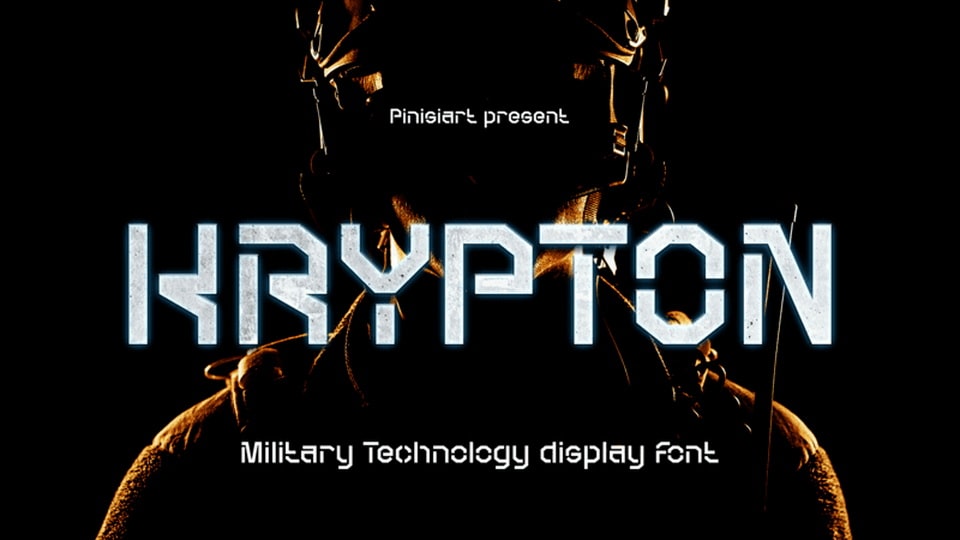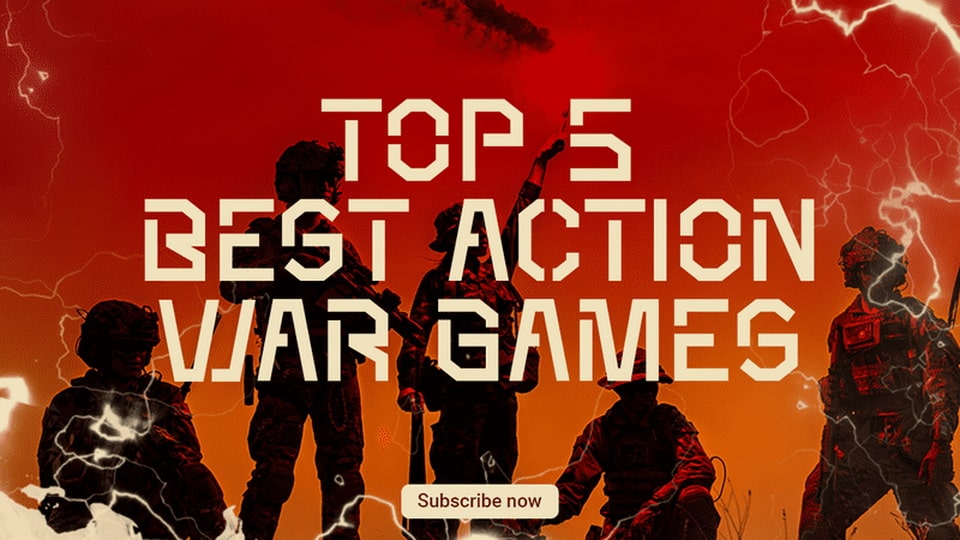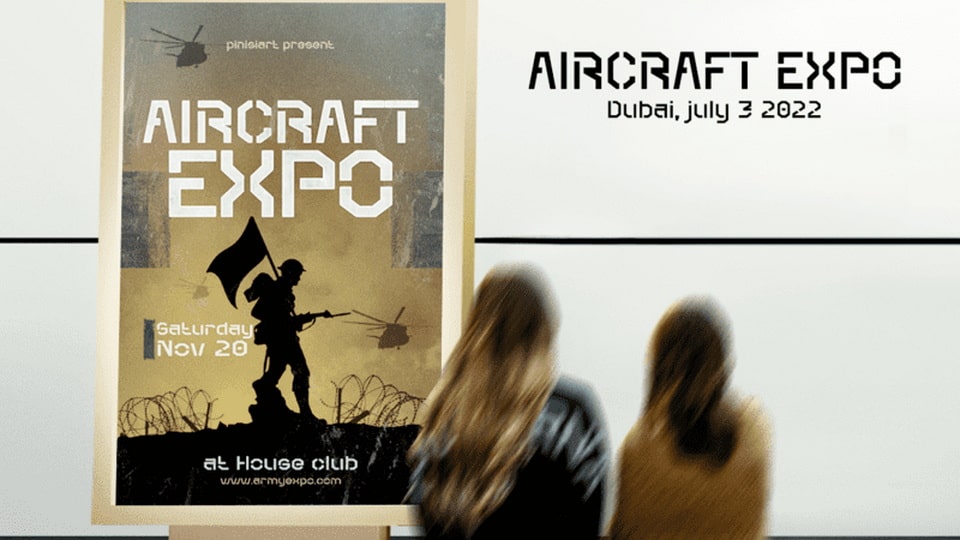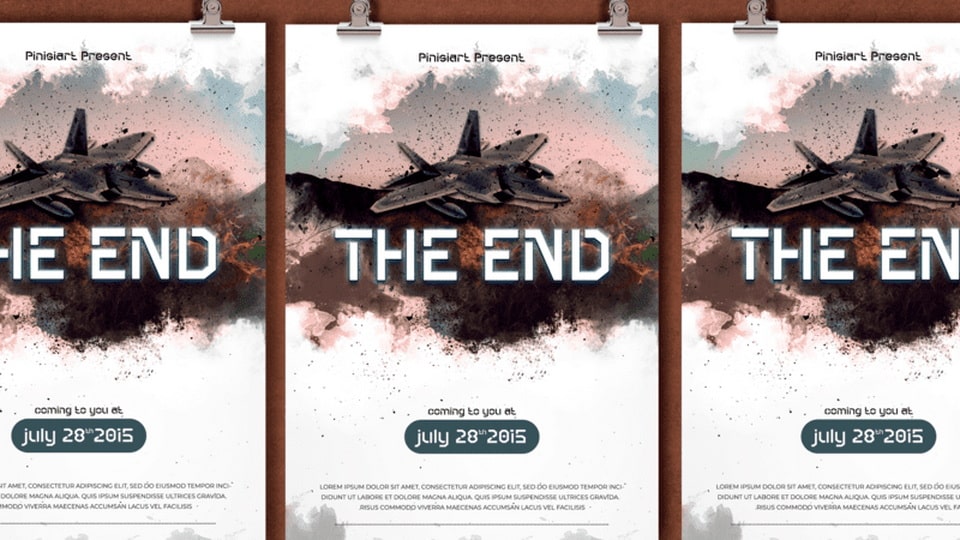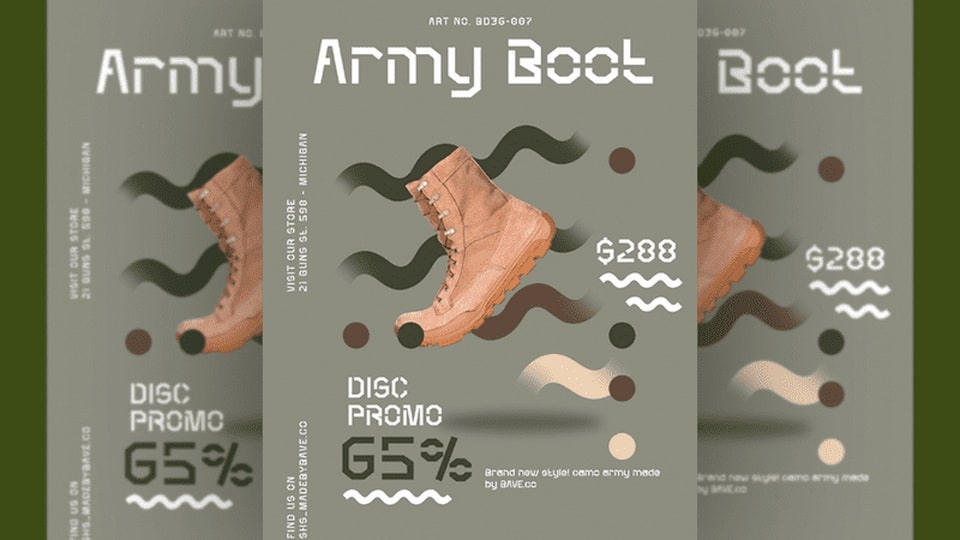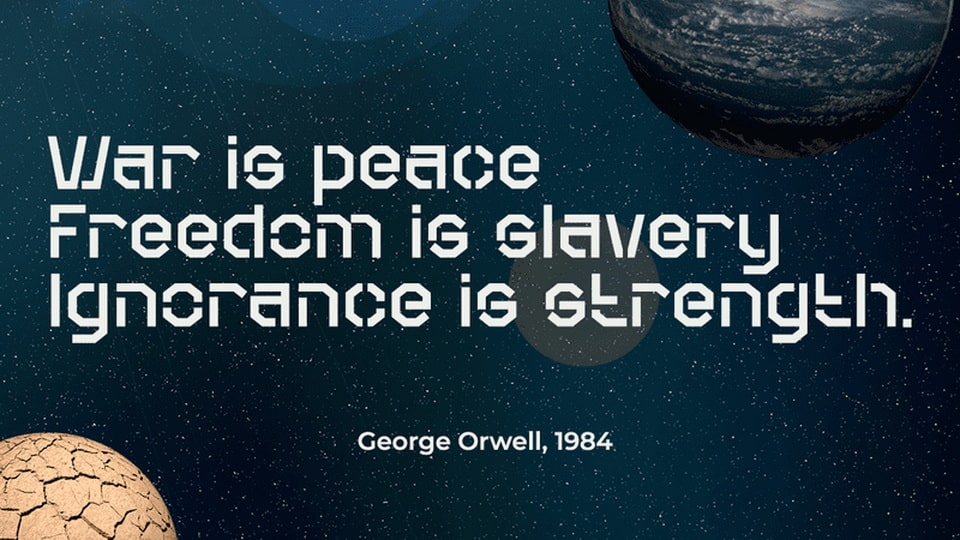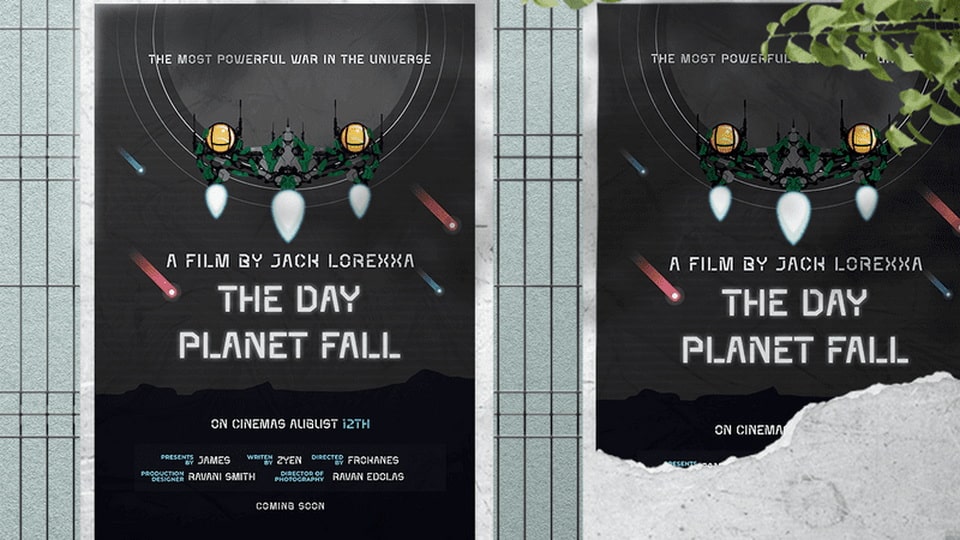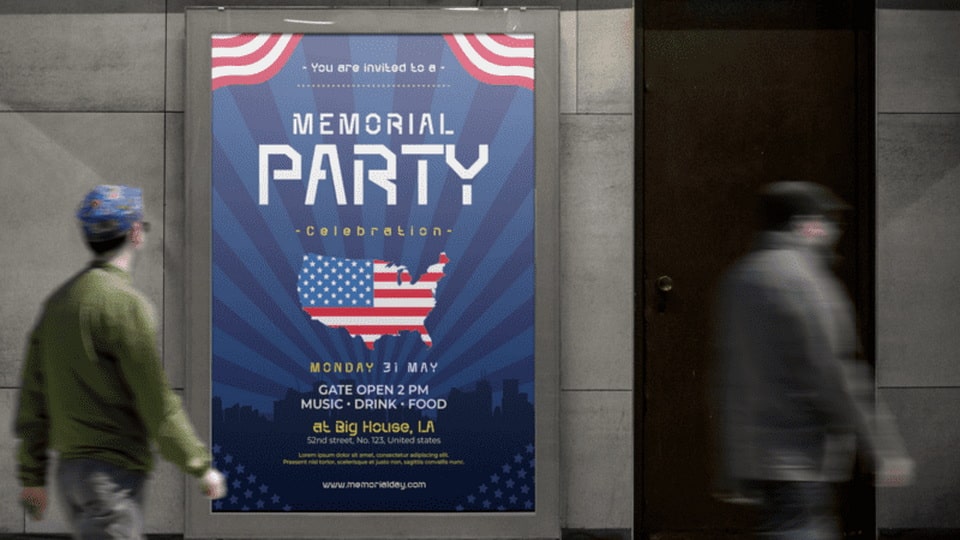
KRYPTON – Military Technology Display Font
Remember the name, it’s full of outer space, and high-end technology has written all over it.
Suit perfectly for military science segmented magazines, posters, movie titles, music posters, youtube covers, youtube thumbnails, social media page covers, and so on…